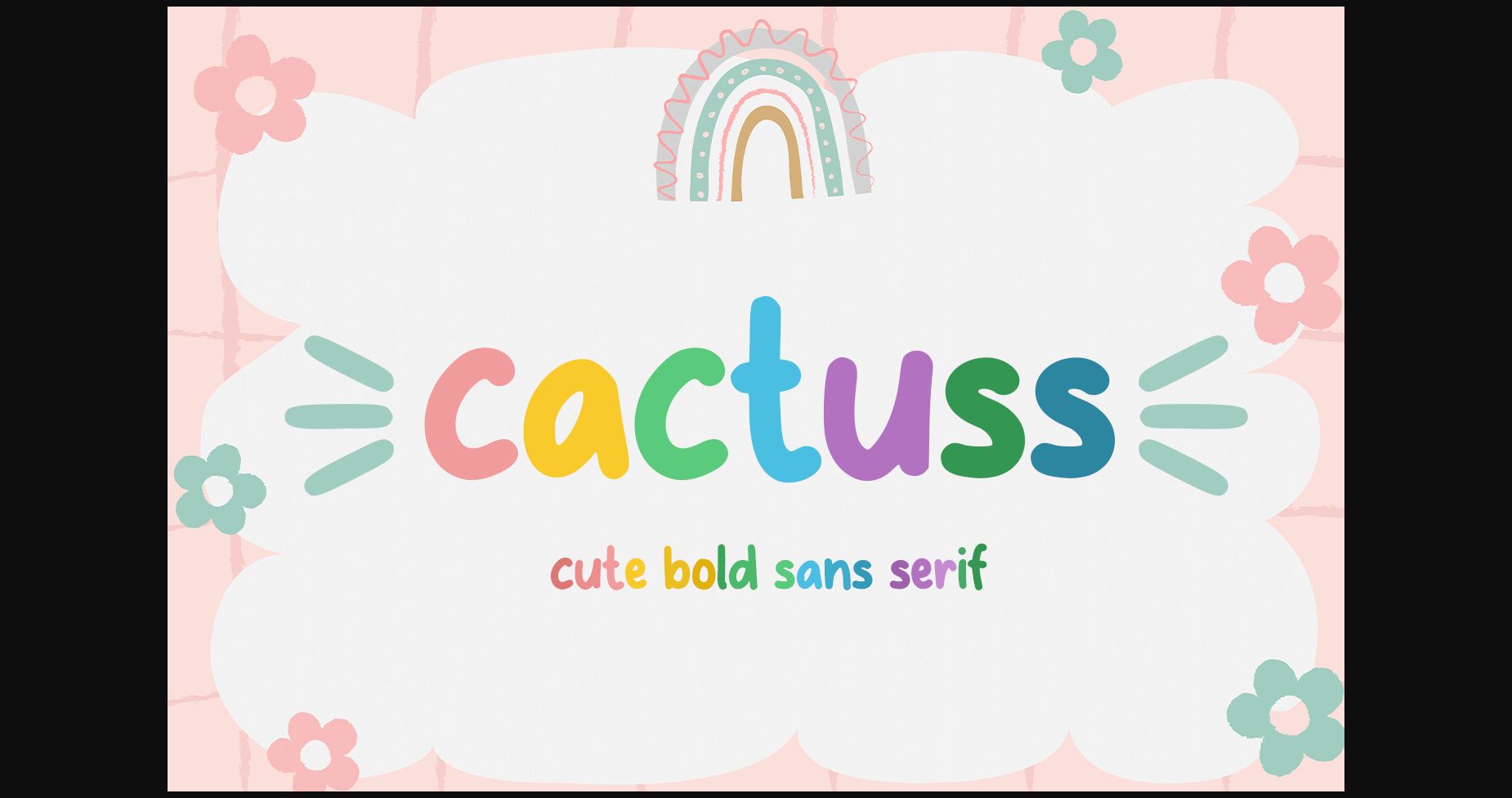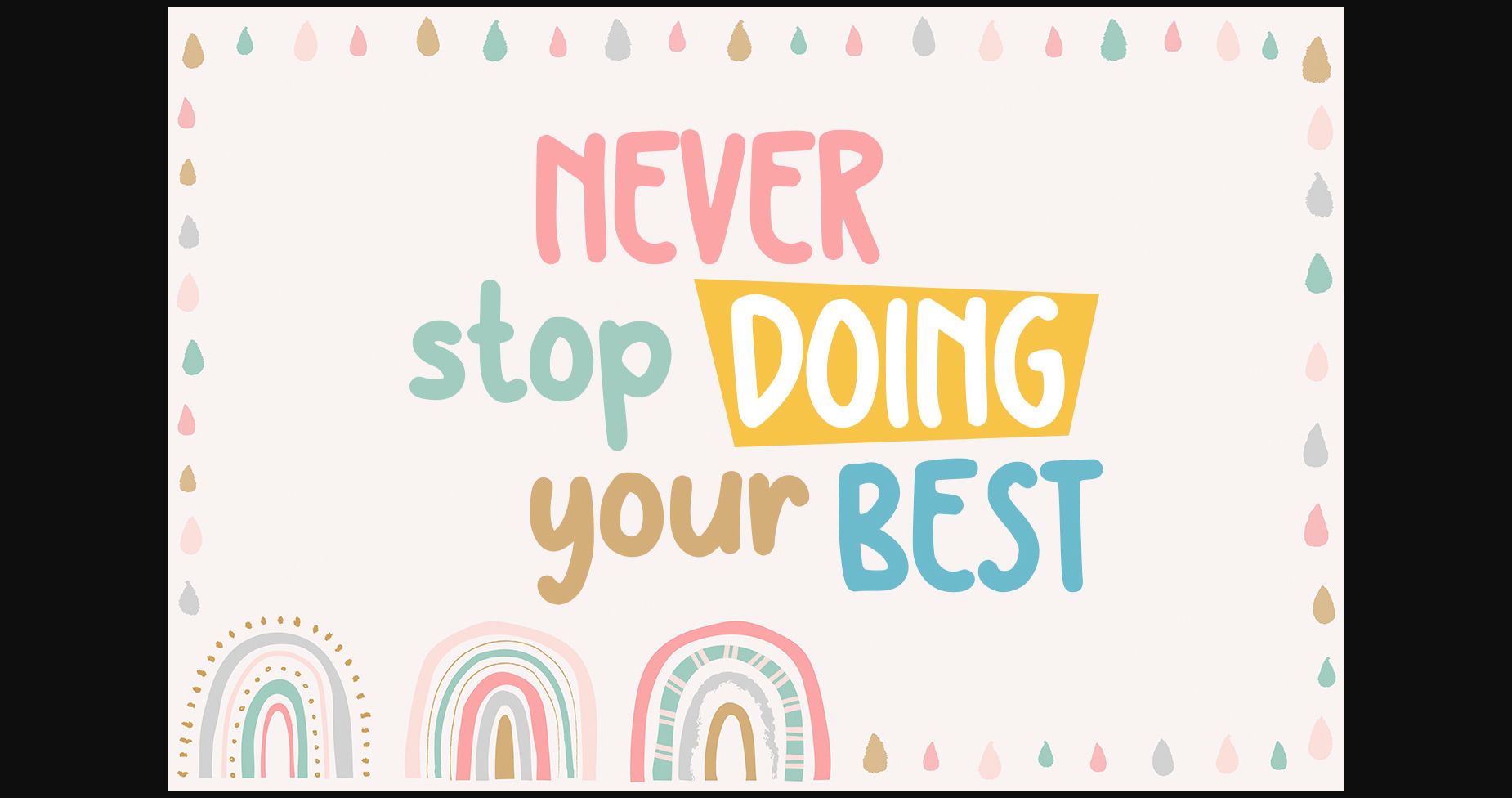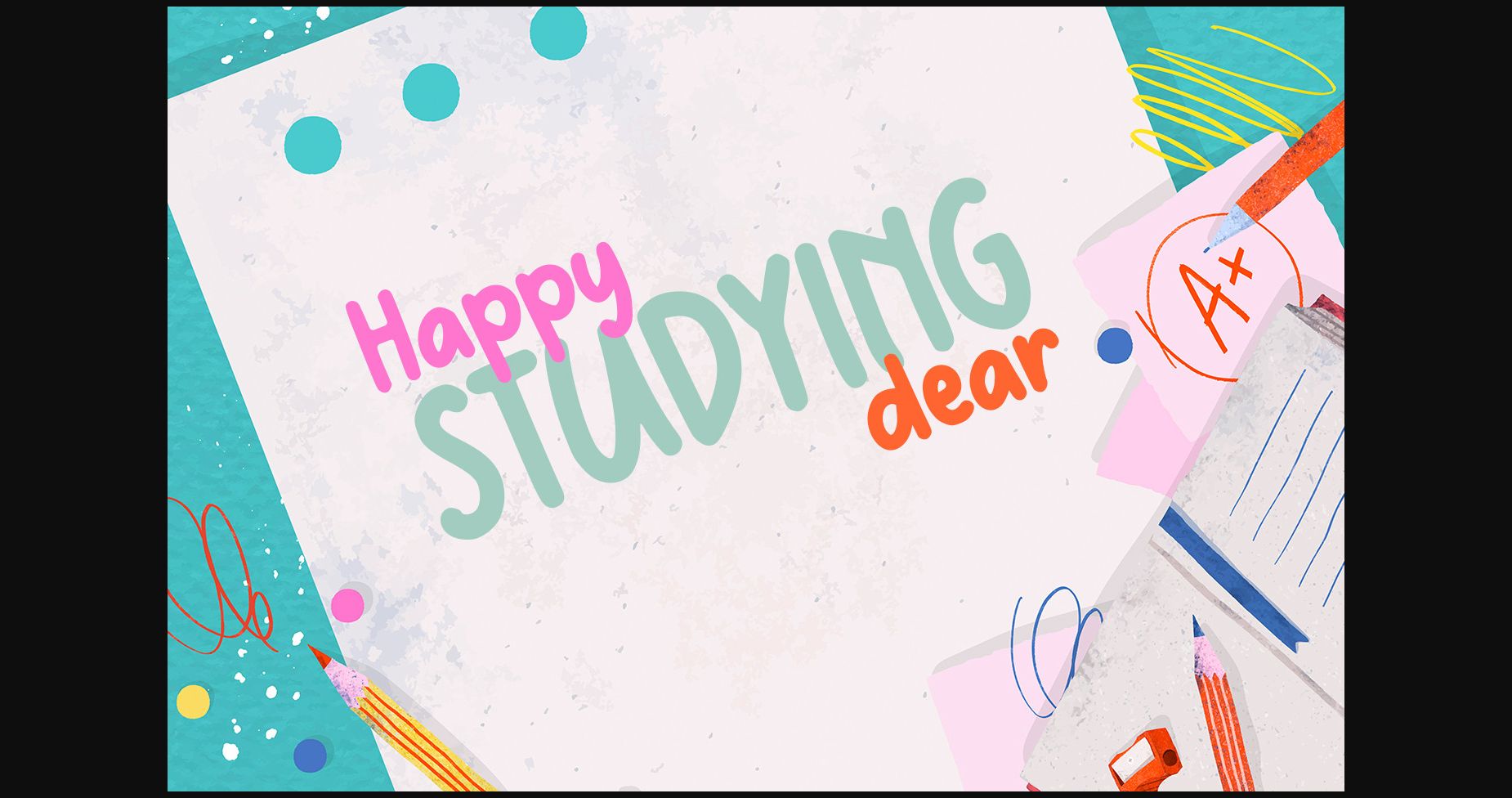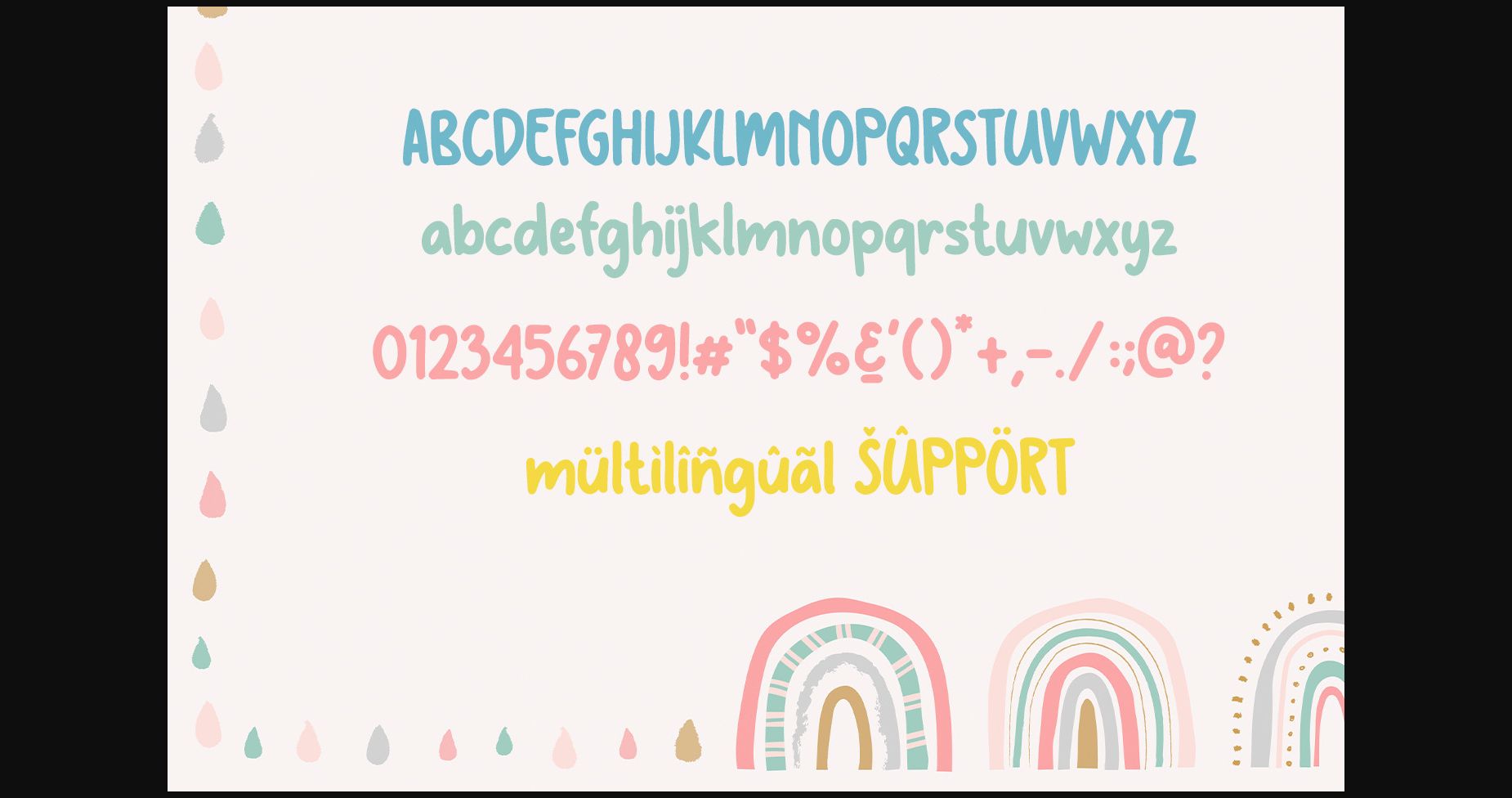
About Cactuss Font
Cactuss is a cute and bold sans serif font.
This font is great for handwritten quotes, social media content, children’s books, teaching material, or any other projects that need a cute and simple feel.